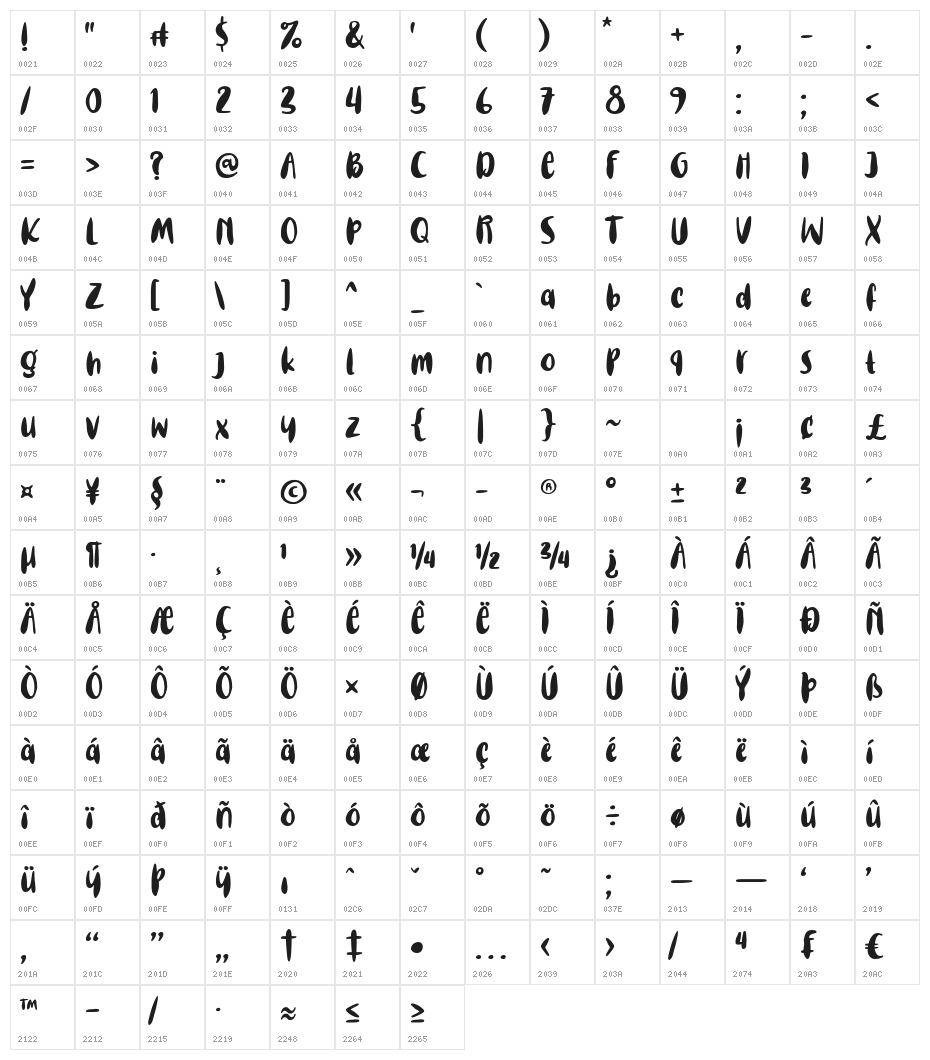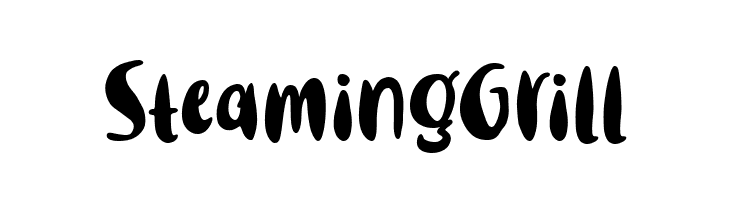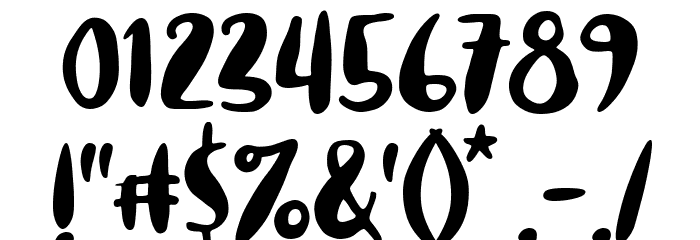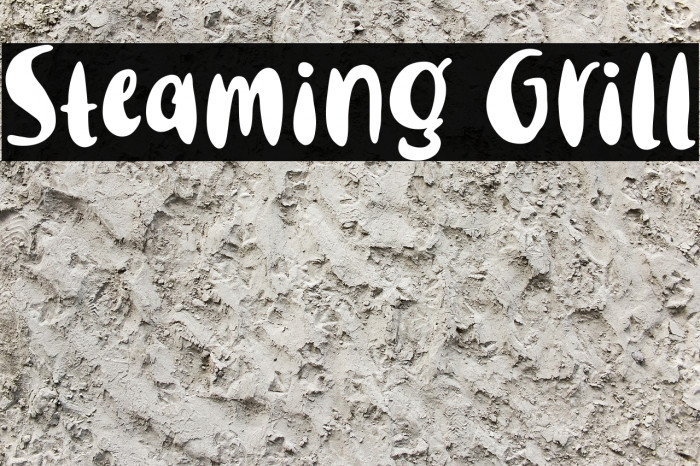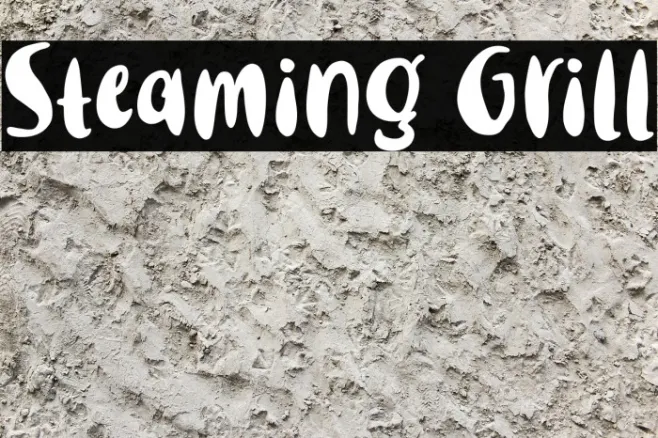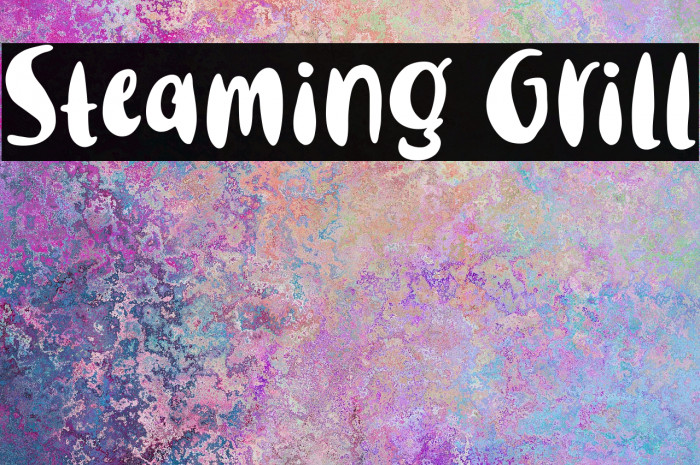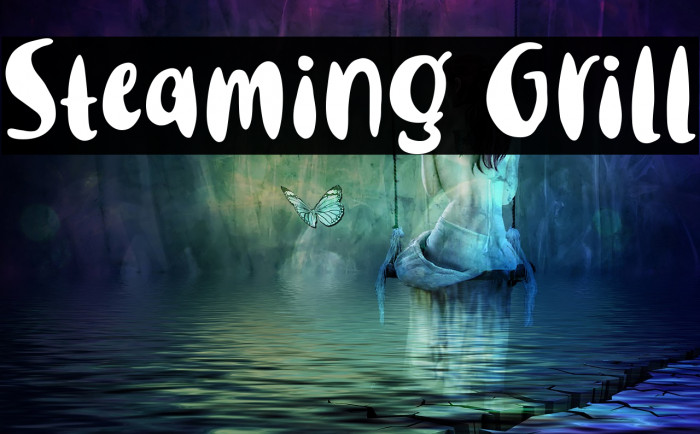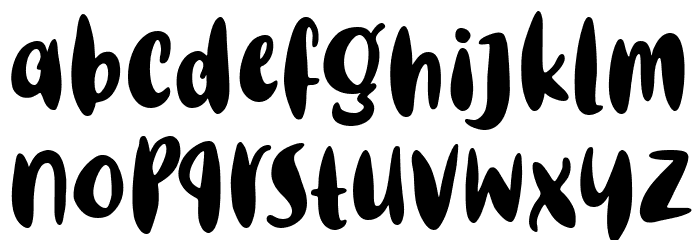
Steaming Grill Font
Steaming Grill Description
This font features a bold, playful style with a handwritten appearance. The characters are rounded and slightly irregular, giving them a casual and friendly feel. The strokes are thick and consistent, contributing to a strong visual impact. The uppercase and lowercase letters maintain a cohesive look, with the lowercase letters slightly more compact. Numbers and special characters follow the same design principles, ensuring uniformity across all glyphs. The overall aesthetic is lively and energetic, making it suitable for projects that require a touch of personality and warmth.
| Proposed Projects | Ideal for children's books, playful branding, casual invitations, and creative posters. |